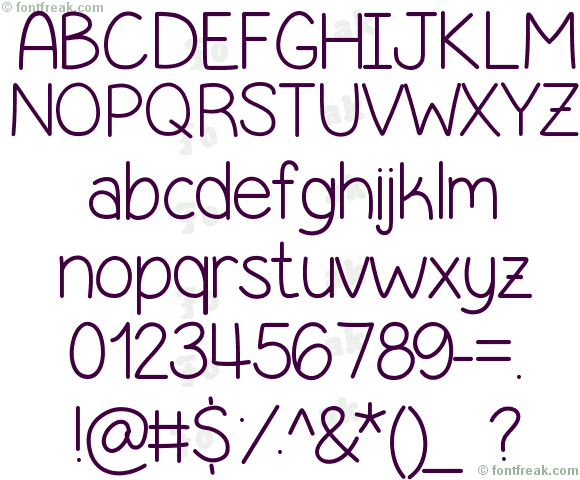
Simple Kind Of Girl
The "Simple Kind Of Girl" font by Vanessa Bays is a charming handwritten typeface that exudes a casual yet elegant vibe. As a display font, it captures the essence of personal expression, making it ideal for various creative applications. Characterized by its moderate stroke weight and smooth curves, this font offers a friendly and approachable aesthetic. The subtle contrast in line thickness adds a touch of sophistication, while the generous spacing between letters enhances readability, making it suitable for both digital and print formats.
One of the best use cases for the "Simple Kind Of Girl" font is in wedding invitations, where its romantic yet uncomplicated style can beautifully convey the joy of the occasion. It also works wonderfully for greeting cards, allowing for a personal touch that resonates with recipients. Additionally, small businesses like cafes or boutiques can utilize this font in their branding materials, such as menus and signage, to create a warm and inviting atmosphere. Content creators will find it perfect for blog headers or social media graphics, as it captures attention without overwhelming the viewer.
What sets the "Simple Kind Of Girl" font apart is its ability to blend simplicity with charm. This versatility makes it an excellent choice for a wide range of projects, ensuring that it can meet the needs of various creative endeavors while maintaining a sense of warmth and approachability.